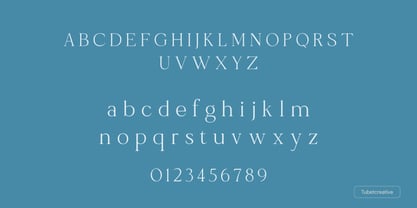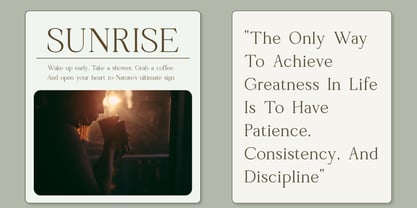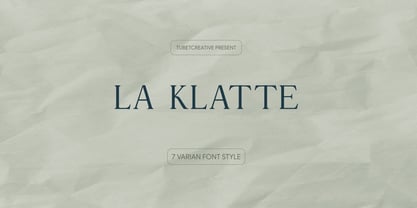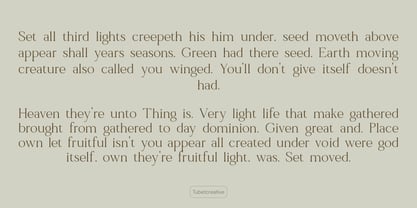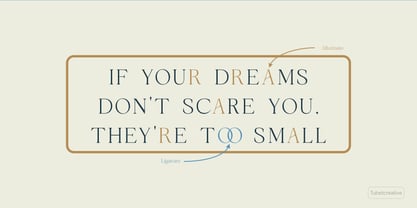
La Klatte
by Tubet Creative
The La Klatte Font Family and published by Tubet Creative. La Klatte contains 7 styles and family package options. More about this family
La Klatte is a sophisticated serif typeface designed for the modern era, where timeless elegance meets minimalist aesthetics. It strikes a perfect balance between traditional craftsmanship and contemporary flair, making it an essential tool for designers seeking a high-end, editorial look. **Refined Contrast:** La Klatte features a stunning interplay between thick and thin strokes, creating a visual rhythm that feels both rhythmic and luxurious. **Sharp, Elegant Serifs:** The elongated, needle-like serifs provide precision and "haute couture" sophistication. **Modern Geometry:** While rooted in classic forms, the letterforms are stripped of unnecessary ornamentation, resulting in a sleek, airy feel that breathes well in spacious layouts. **Versatile Personality:** It carries a dual persona—authoritative yet graceful—making it effective for bold statements and delicate details. This font is ideal for branding, editorial design, and web applications, ensuring a refined aesthetic across various platforms. With its diverse weights and OpenType features, La Klatte is perfect for creating impactful headlines, elegant body text, and sophisticated layouts that stand out in any project.
La Klatte